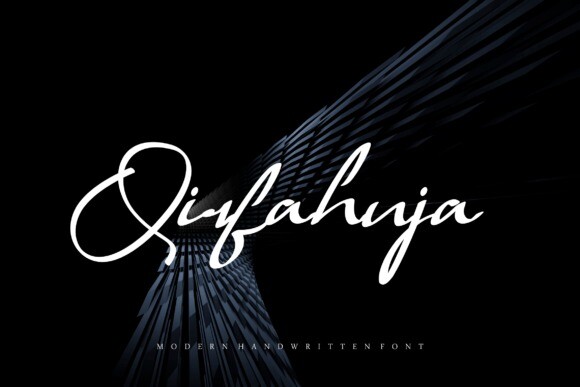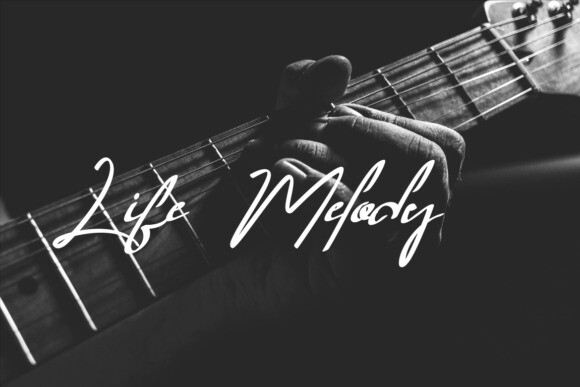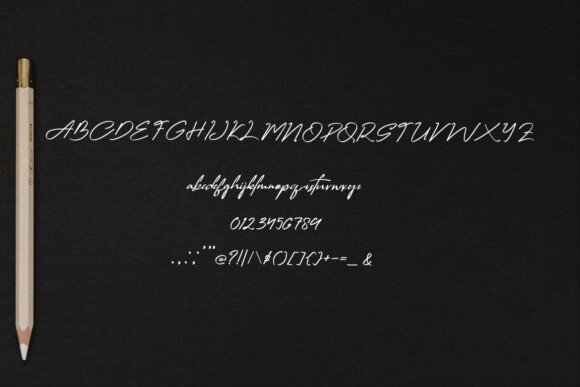
Qirfahuja Font
Qirfahuja is a modern and stylish handwritten script font. No matter the topic, this font will be an incredible asset to your fonts’ library, as it has the potential to elevate any creation.